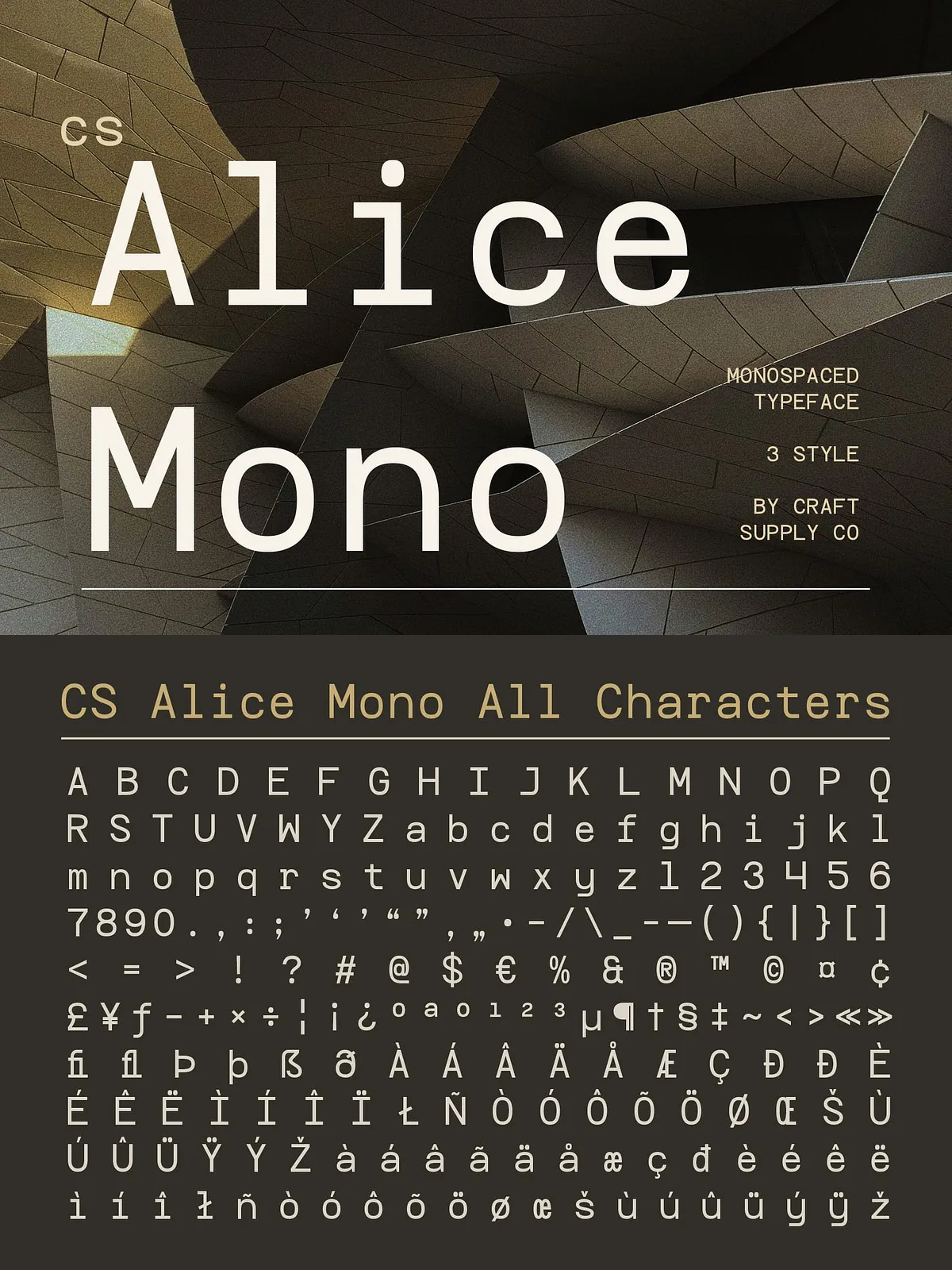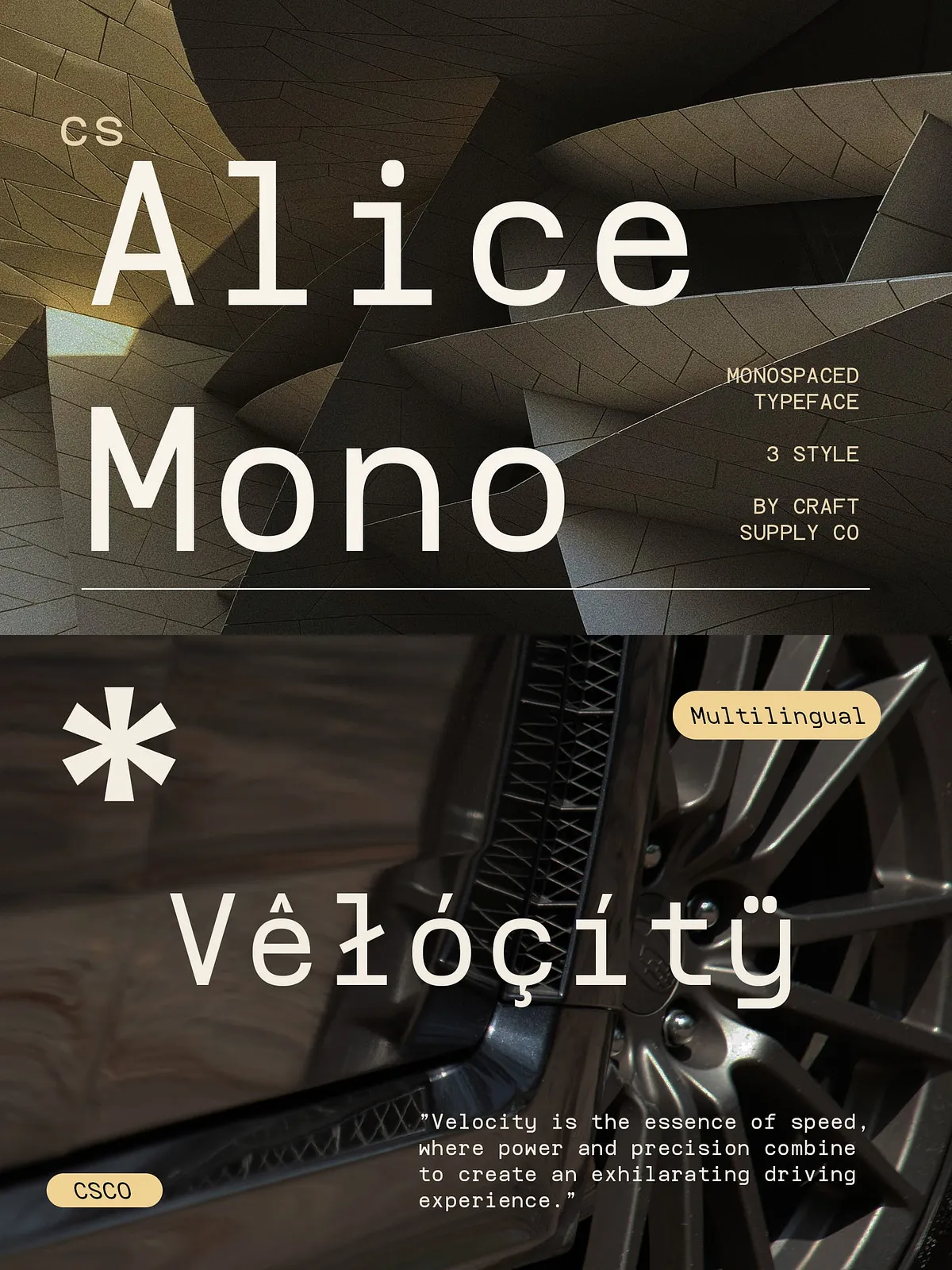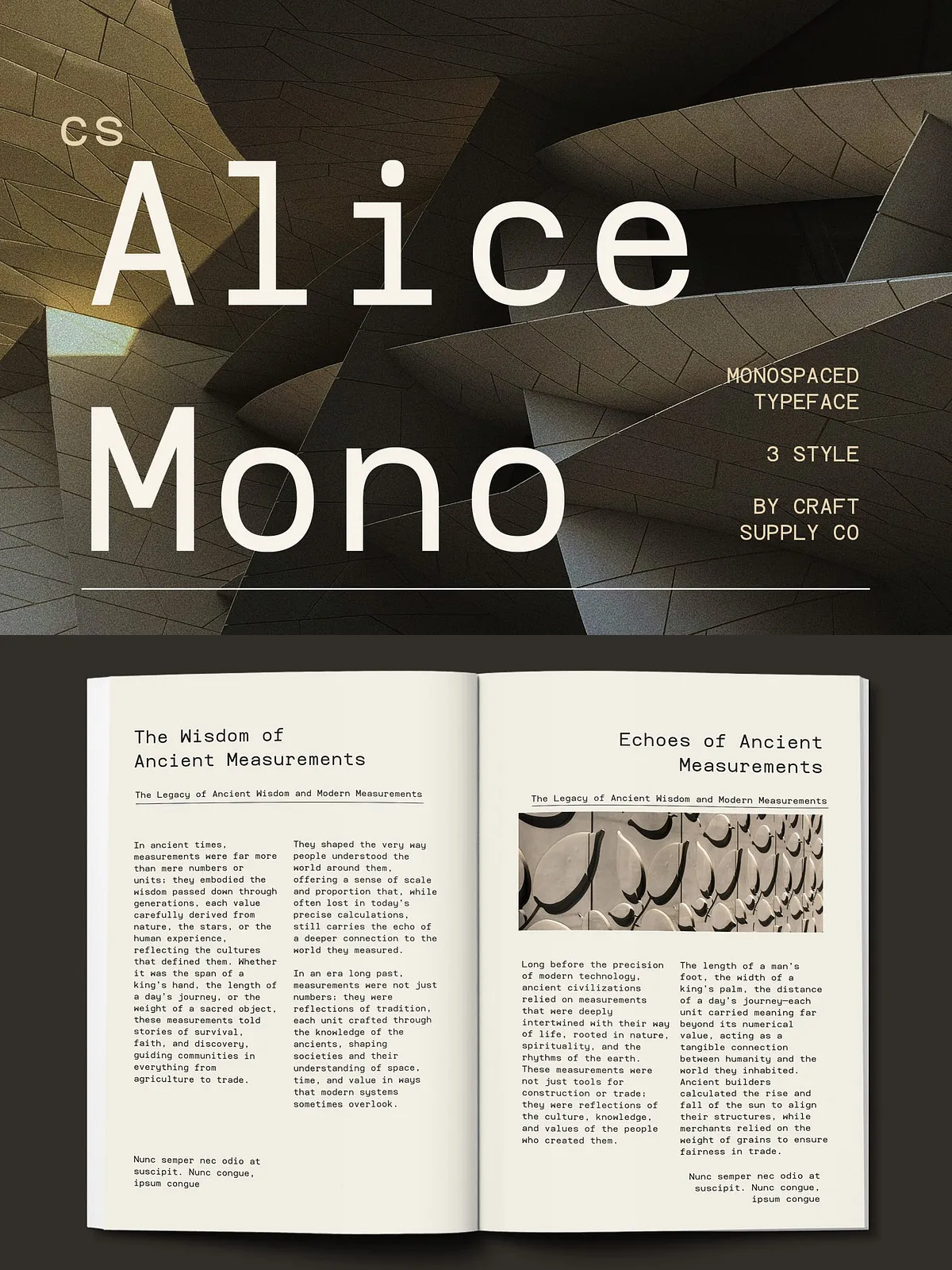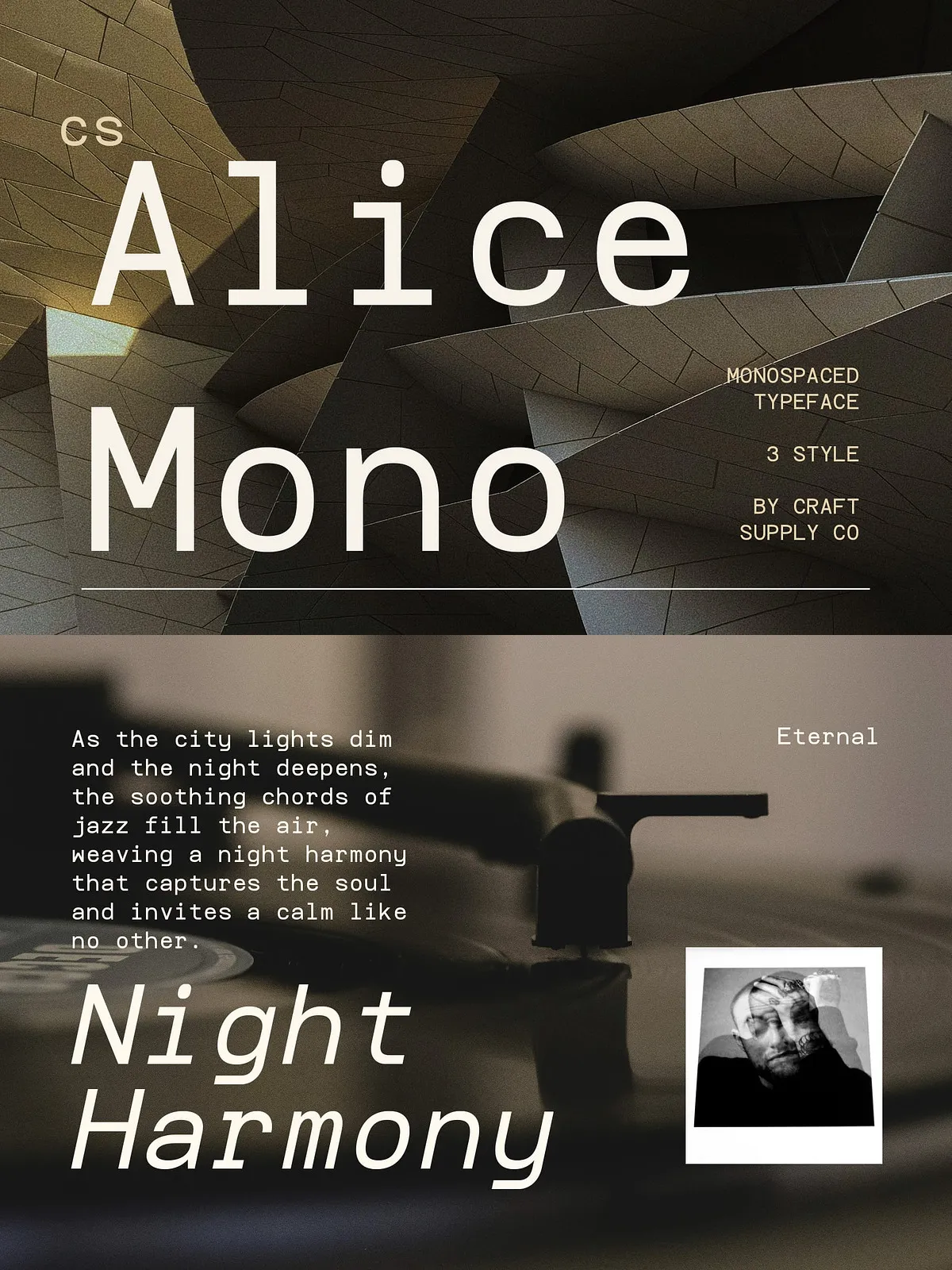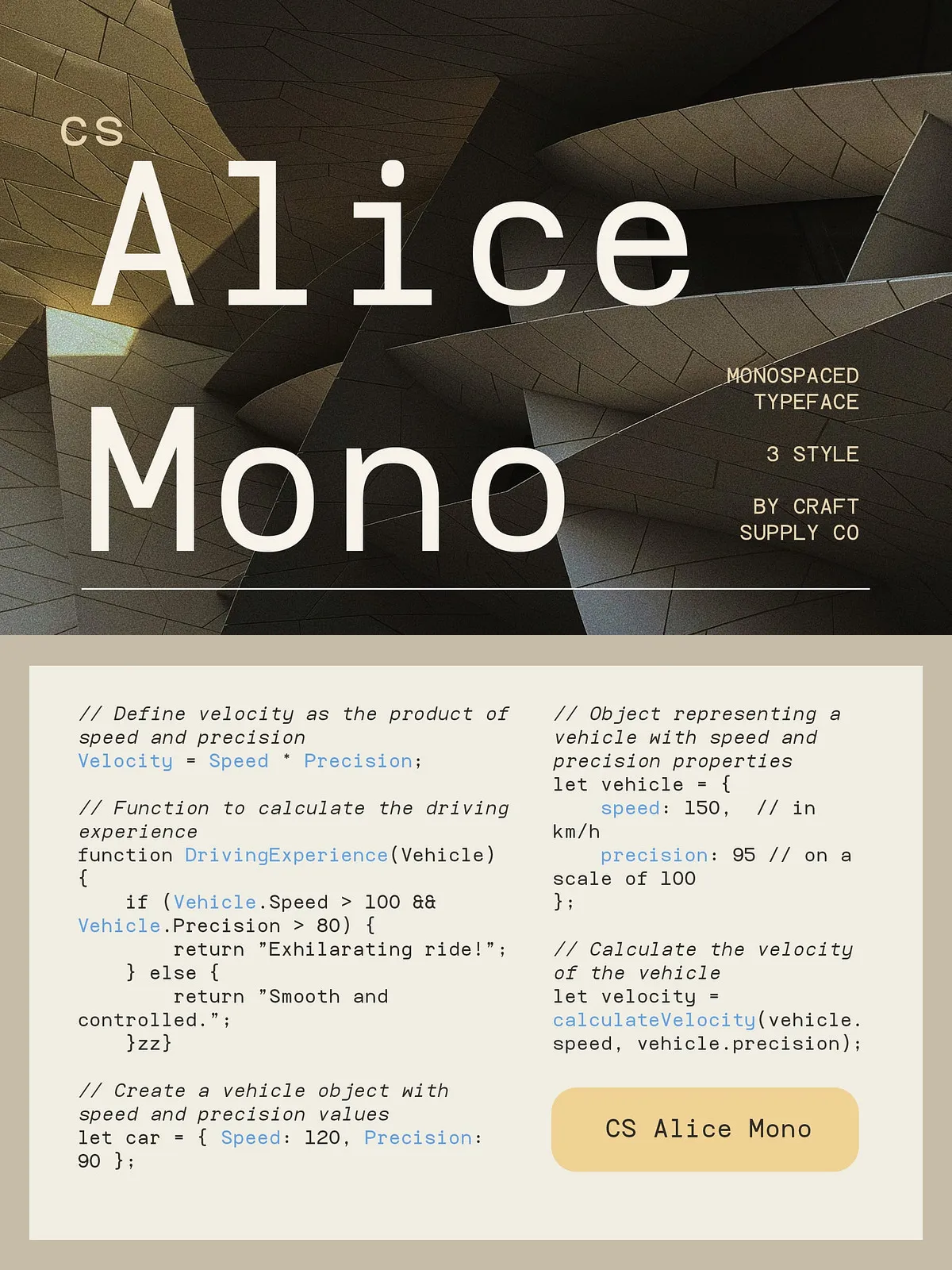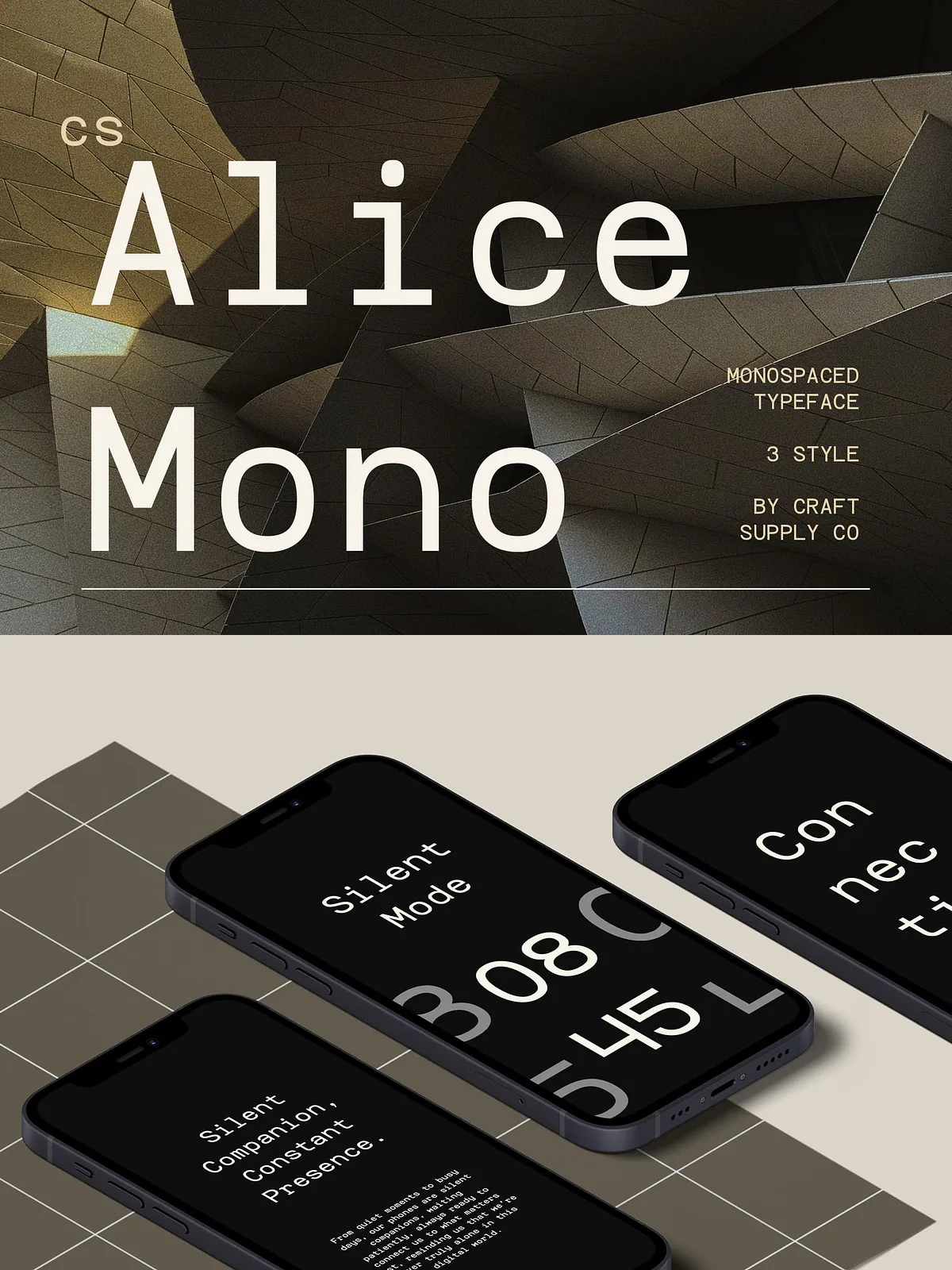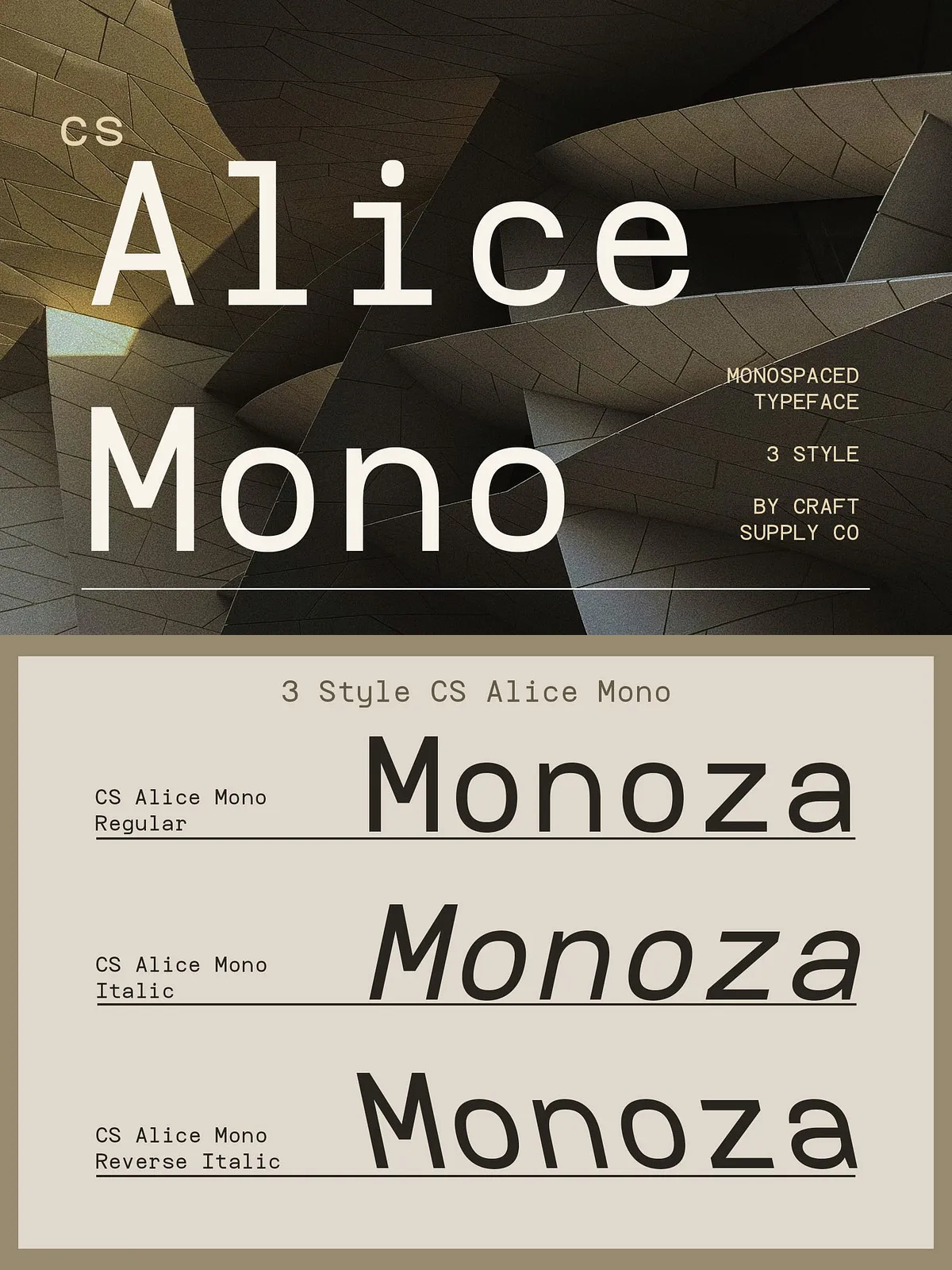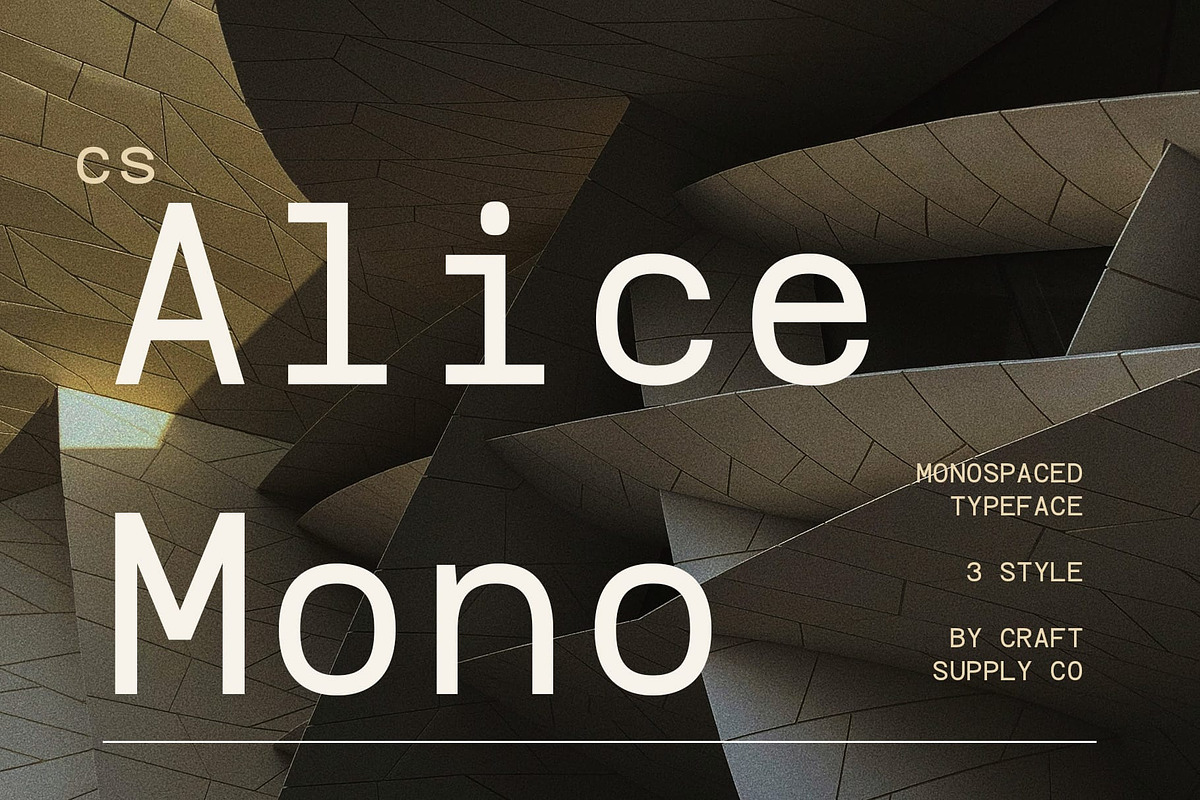
CS Alice Mono – Monospaced Font
CS Alice Mono is not just a font — it’s a performance-driven tool designed for creators who demand accuracy. Built on the foundation of modern monospaced design, every character maintains a uniform width, eliminating visual clutter and ensuring perfect alignment across text blocks. This structural consistency isn’t just aesthetic — it’s functional. Whether you’re writing code, constructing technical documentation, or designing digital interfaces, CS Alice Mono guarantees that each character stands out with clarity and intent.
Its clean, geometric sans serif form strips away noise and distractions. No ornamental flourishes, no inconsistent strokes — only purposeful design. The result? A typeface that commands attention without overwhelming the reader. From the first line to the final line of code, CS Alice Mono delivers uninterrupted legibility and professional-grade consistency.
Designed for the Demands of Modern Workflows
Optimized for developers, designers, and technical communicators
Forget fonts that work well in theory but fail in practice. CS Alice Mono is built with real-world usage in mind. It thrives in high-pressure environments where speed, accuracy, and comprehension are paramount:
• Programming & Code Editing: Its rigid character alignment ensures syntax errors stand out, loops and brackets are easily distinguishable, and long code blocks remain readable even during extended sessions.
• Technical Documentation & Manuals: Deliver complex technical content with confidence. The consistent spacing improves scanning efficiency, making it easier for users to locate key information quickly.
• UI/UX Design & Interface Prototypes: Use CS Alice Mono for system messages, command inputs, settings panels, or developer mode screens. Its structured appearance enhances user trust and perception of reliability.
• Developer Portfolios & Creative Coding: Showcase your work with a font that reflects precision and modern design sensibility — perfect for landing pages, GitHub READMEs, and interactive demos.
• Presentations & Live Demos: When presenting code or architecture, let the font do the heavy lifting — making complex structures easier to follow in real time.
Three Powerful Variants for Full Creative Control
Regular, Italic, and Reverse Italic — each built for a different mission
CS Alice Mono isn’t limited to a single face. It launches with three dynamic styles, each engineered to serve specific design roles:
• CS Alice Mono Regular: The anchor of the family. Ideal for default body text, function names, configuration files, and any environment where clarity is non-negotiable.
• CS Alice Mono Italic: Introduce movement and emphasis. Use this style to highlight variables, comments, or narrative elements within code, adding rhythm without sacrificing readability.
• CS Alice Mono Reverse Italic: A bold visual twist. With inverted stroke weight and deliberate asymmetry, this style excels in high-contrast overlays, glitch effects, or titles that need to cut through noise.
Together, these variants form a cohesive ecosystem. They’re not just alternatives — they’re strategic tools. Use them to guide the reader’s eye, create visual hierarchy, and add emotional depth to functional text.
Advanced Features for Professional-Grade Results
OpenType power. Global reach. Seamless integration.
Engineered for professionals across platforms and disciplines, CS Alice Mono includes a suite of technical features to elevate your work:
• Full Uppercase and Lowercase Support: Clean, consistent rendering across all case variations for headings, labels, and system outputs.
• OpenType Standard Features: Includes ligatures, case-sensitive forms, punctuation spacing, and stylistic sets for advanced typography control.
• Multilingual Character Coverage: Full support for Latin, Western European, and extended character sets — perfect for global teams, international documentation, or multilingual UIs.
• PUA Encoding: Access to special glyphs, icons, and alternate characters without layout conflicts — ideal for custom symbol systems, coding libraries, or data visualizations.
Install once. Apply anywhere. CS Alice Mono flows smoothly from wireframe to final product, adapting to your process — not the other way around.
Claim Your Edge in a World of Visual Noise
Stop using fonts that disappear. Start using one that defines.
In a digital landscape flooded with generic, forgettable typefaces, CS Alice Mono doesn’t just stand out — it leads. It’s more than a tool for reading. It’s a statement about craftsmanship, attention to detail, and the belief that form and function should coexist.